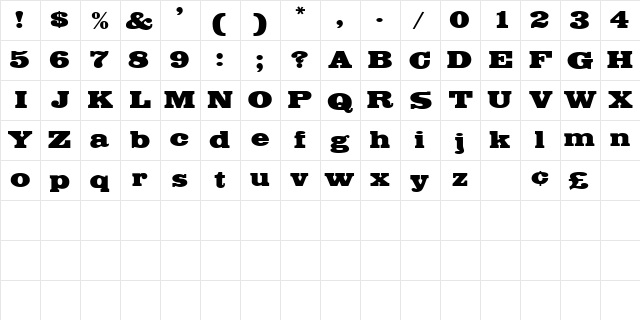
BodegaDisplaySSK Regular
Design Context for BodegaDisplaySSK Typeface
BodegaDisplaySSK is built around its visual character rather than neutral utility — its distinctive forms are designed to make an impression at display sizes.
Font Pairing: Pair with a clean neutral sans-serif for body copy to let BodegaDisplaySSK's character lead without overwhelming the composition.
Pro Tip: Use BodegaDisplaySSK exclusively at display sizes — it was designed to be seen, not read at length. Let a neutral companion handle body copy.